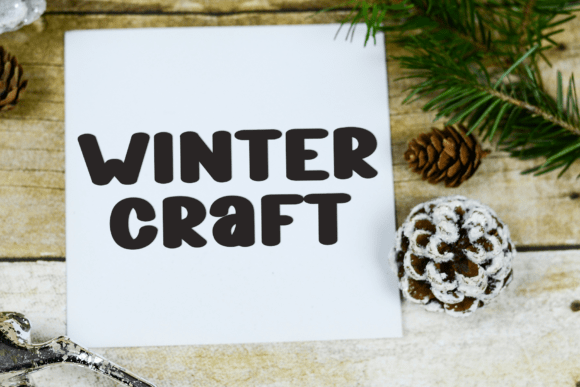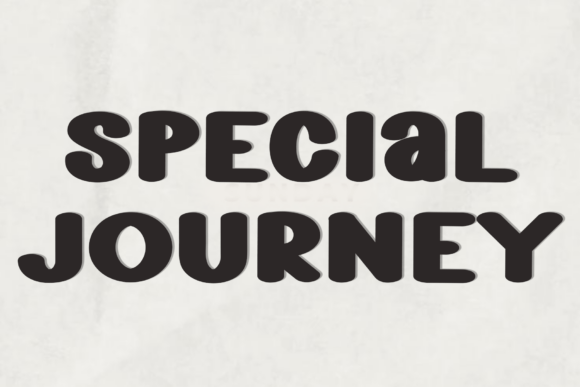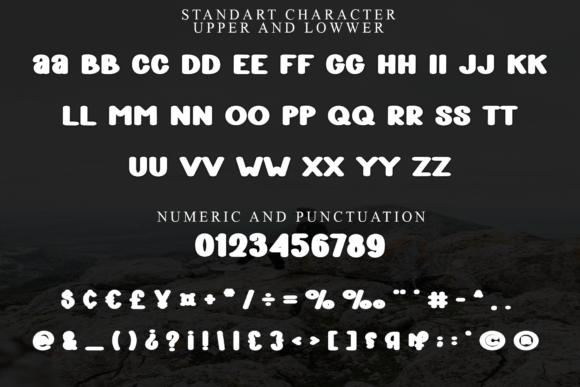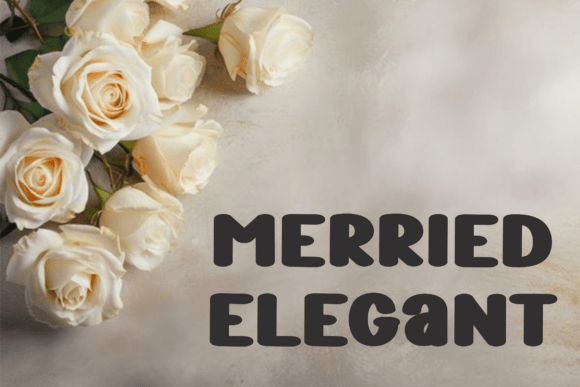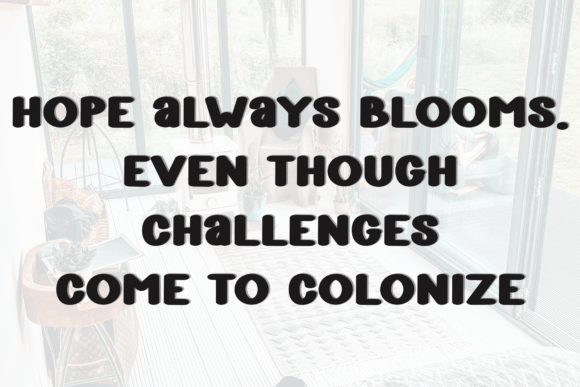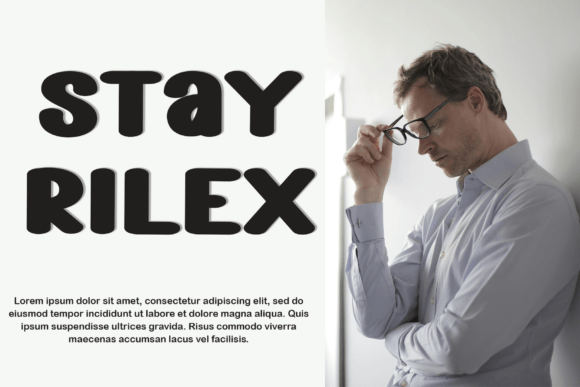
Introduction to Light Heavy Font
As a designer, have you ever found yourself staring at a blank page, desperately searching for the perfect font to bring your creative project to life? It’s a moment we’ve all been through, and it’s precisely this feeling that inspired us to dive into the world of typography and discover the beauty of the Light Heavy Font.
With its soft, unique touch and distinctive strokes, the Light Heavy Font is a game-changer for designers. Its versatility makes it an ideal choice for a wide range of design projects, from crafts to digital art, and its high-quality design ensures that it will elevate your work to the next level.
In this article, we’ll delve into the world of the Light Heavy Font, exploring its features, benefits, and why it’s a valuable resource for designers looking to add a touch of sophistication to their work.
Key Features of Light Heavy Font
- High-quality design resource: The font is carefully crafted to provide a unique and professional look for your creative project.
- Perfect for creative projects: This font is ideal for use in logos, branding, and advertising materials due to its modern and sleek design.
Honest Review: Light Heavy Font
As a designer, I’m always on the lookout for high-quality design resources that can elevate my creative projects. I recently had the chance to work with Light Heavy Font, and I must say it’s been a game-changer. Here’s my honest review.
- Smooth, elegant lines that add a touch of sophistication to any design.
- Highly customizable, making it perfect for logos, branding, and other identity projects.
- Limited font styles, which may not be suitable for complex design projects.
- Some users may find the font too modern or trendy, which may not appeal to all designers.
Overall, I’m impressed with Light Heavy Font. While it may not be the perfect solution for every design project, it’s definitely a solid choice for creative projects that require a touch of elegance and sophistication. With its high quality and customizable options, it’s definitely worth checking out.
Tips for Getting the Most Out of Light Heavy Font
For the best results, use Light Heavy Font on a transparent background to create a seamless design. Experiment with different font sizes and colors to add visual interest to your project.
Common Use Cases for Light Heavy Font
Light Heavy Font is ideal for a variety of creative projects, including logo designs, social media graphics, and infographics. Its high-quality aesthetic makes it perfect for presentations and reports.
Q: Is the Light Heavy Font a high-quality design resource, suitable for creative projects?
Yes, the Light Heavy Font is a high-quality design resource, carefully crafted to meet the needs of designers working on creative projects. Its unique blend of style and functionality makes it an excellent choice for designers looking to add a touch of sophistication to their designs.